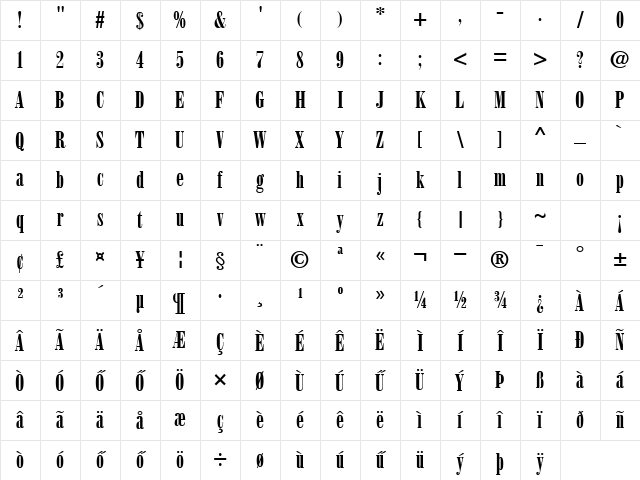
Complete HBodoni Poster Compr Normal glyph index. Displaying only characters natively supported by HBodoni Poster Compr Normal font.
HBodoni Poster Compr is a composed and adaptable typeface that performs quietly and consistently across a wide range of design contexts.